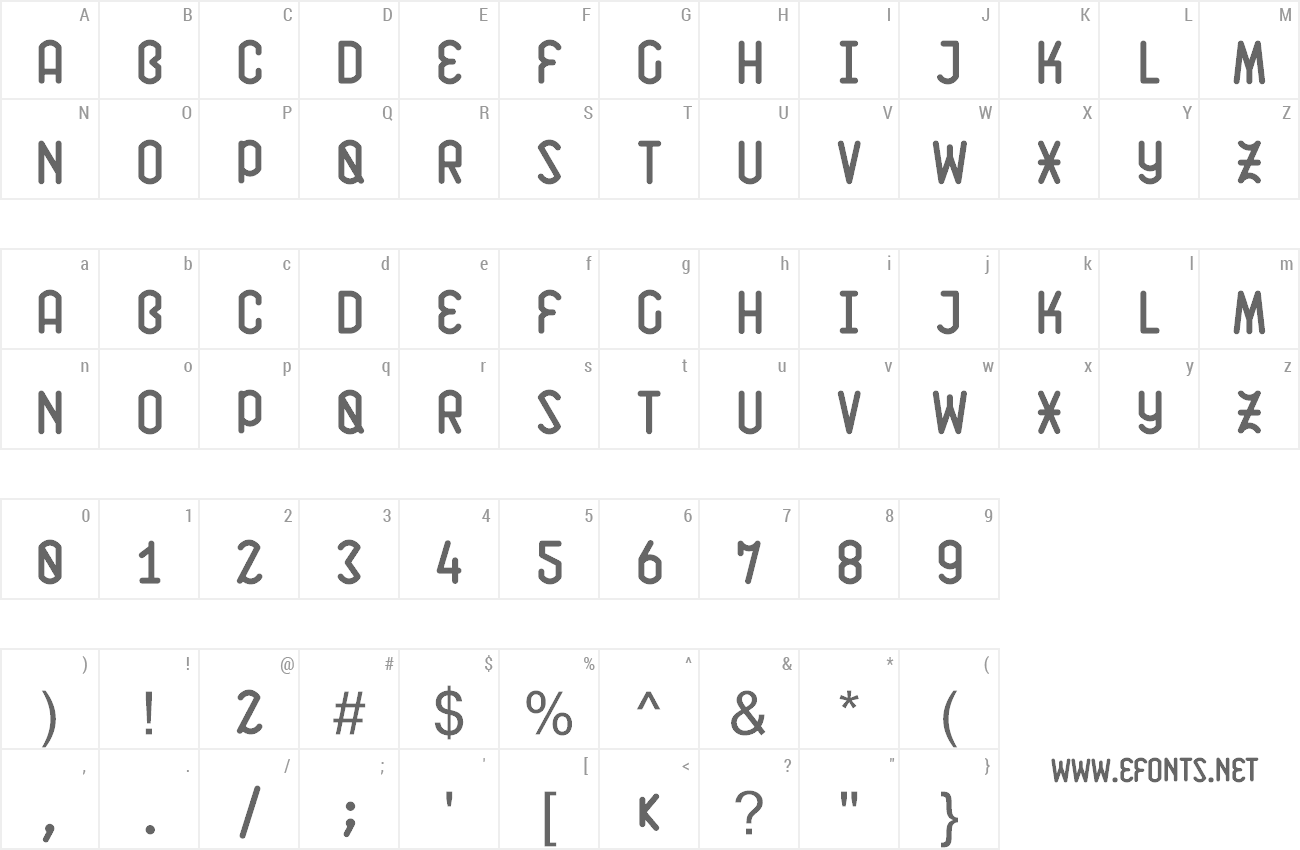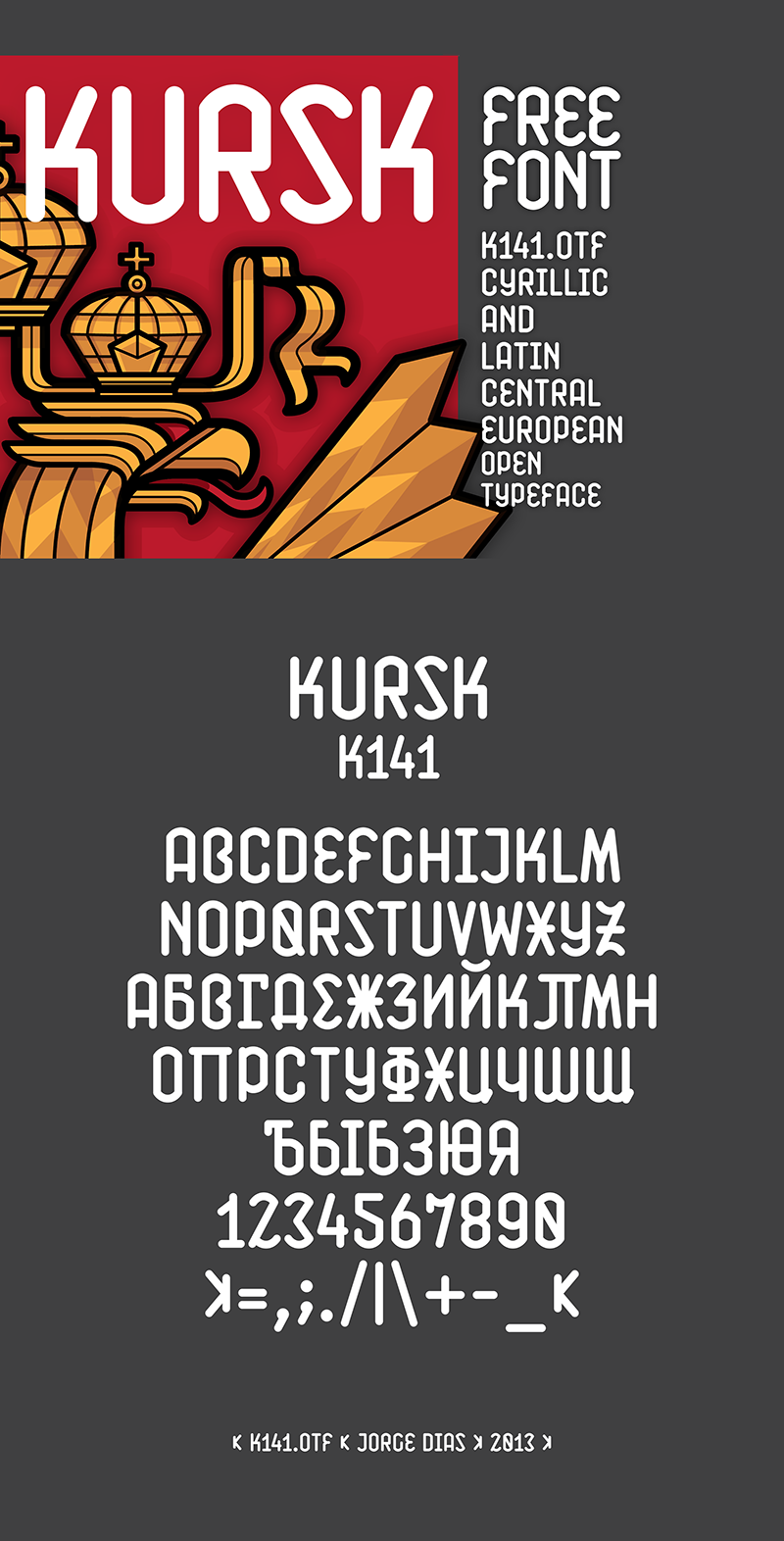
| Note by Jorge Dias | |
| This is a submarine K141 Kursk project font, i hope you enjoy the font and the making of in www.behance.net/gallery/KURSK-K141-Free-Font/13344567 and give me a like or a appreciation if you like the project. |